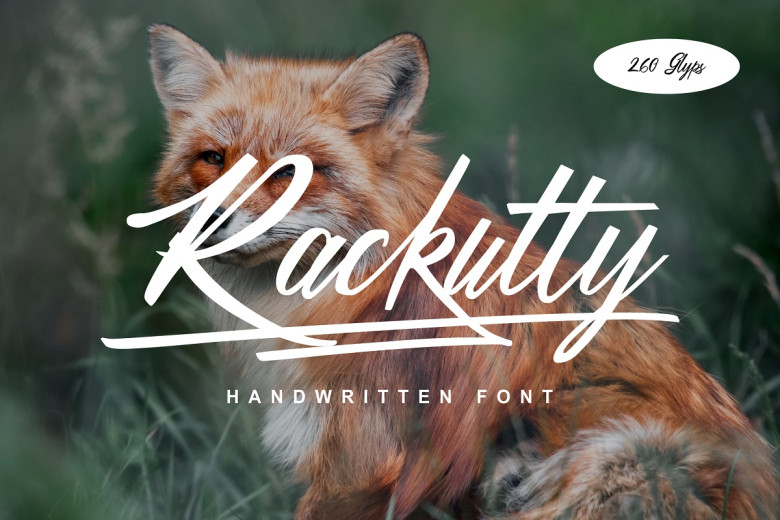
Rackutty Font
Rackutty Font, designed as a handwritten font, can be utilized in multiple design projects including product design, greeting cards and logos. Rackutty uses OpenType Standard Ligature to differentiate between lowercase letters, consecutive numbers and other characters.
Rackutty Handwritten Font